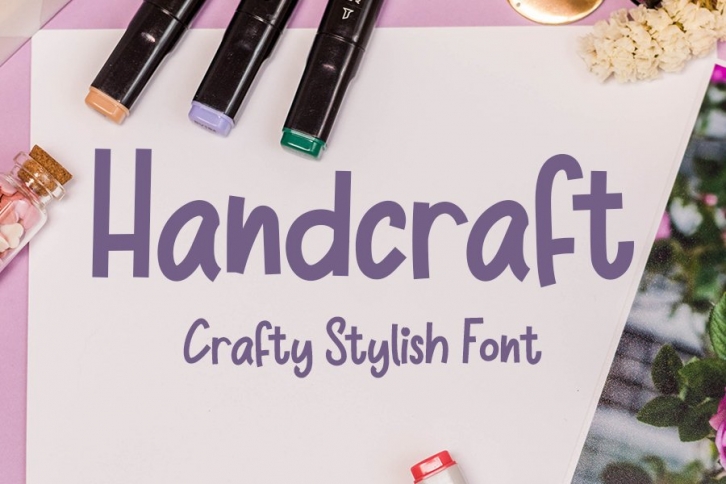
Handcraft is a gorgeous font that was realeased on September 11, 2020. The font can be used in many style contexts and design environments. Perfect for invitations, magazines, websites, logos, and more! It was designed by InermediaSTUDIO and the file size is 11.96 MB. Thanks for checking out this font!